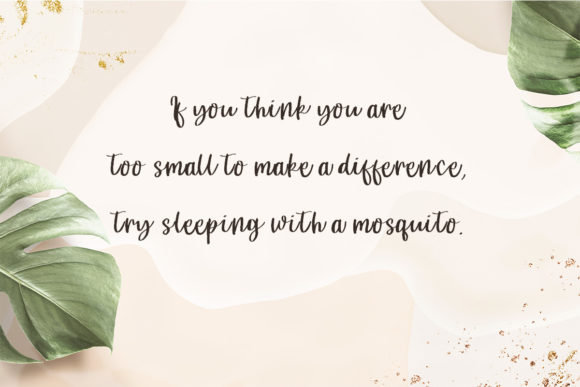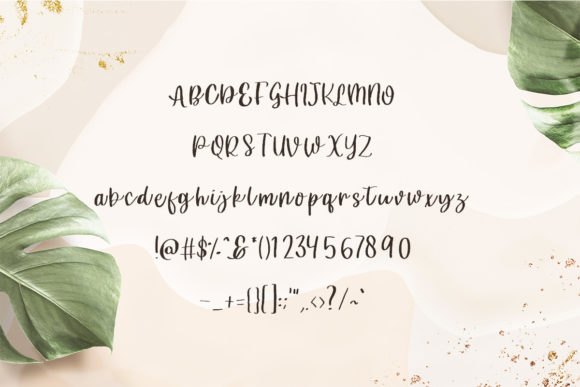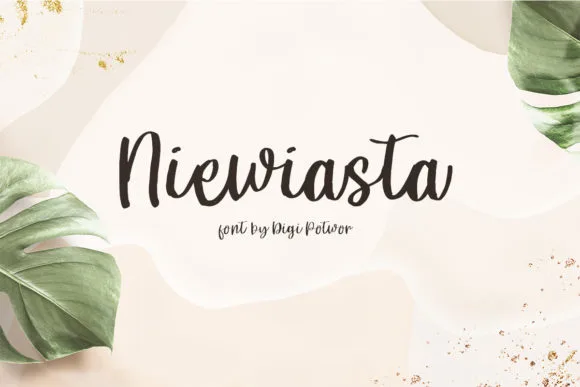
Niewiasta Font
About Niewiasta Font
Niewiasta is a trendy and chic script font, featuring a lovely flow. Whether you’re using it for crafts, digital design, presentations, or making greeting cards, this font has the potential to become your favorite go-to font, no matter the occasion!